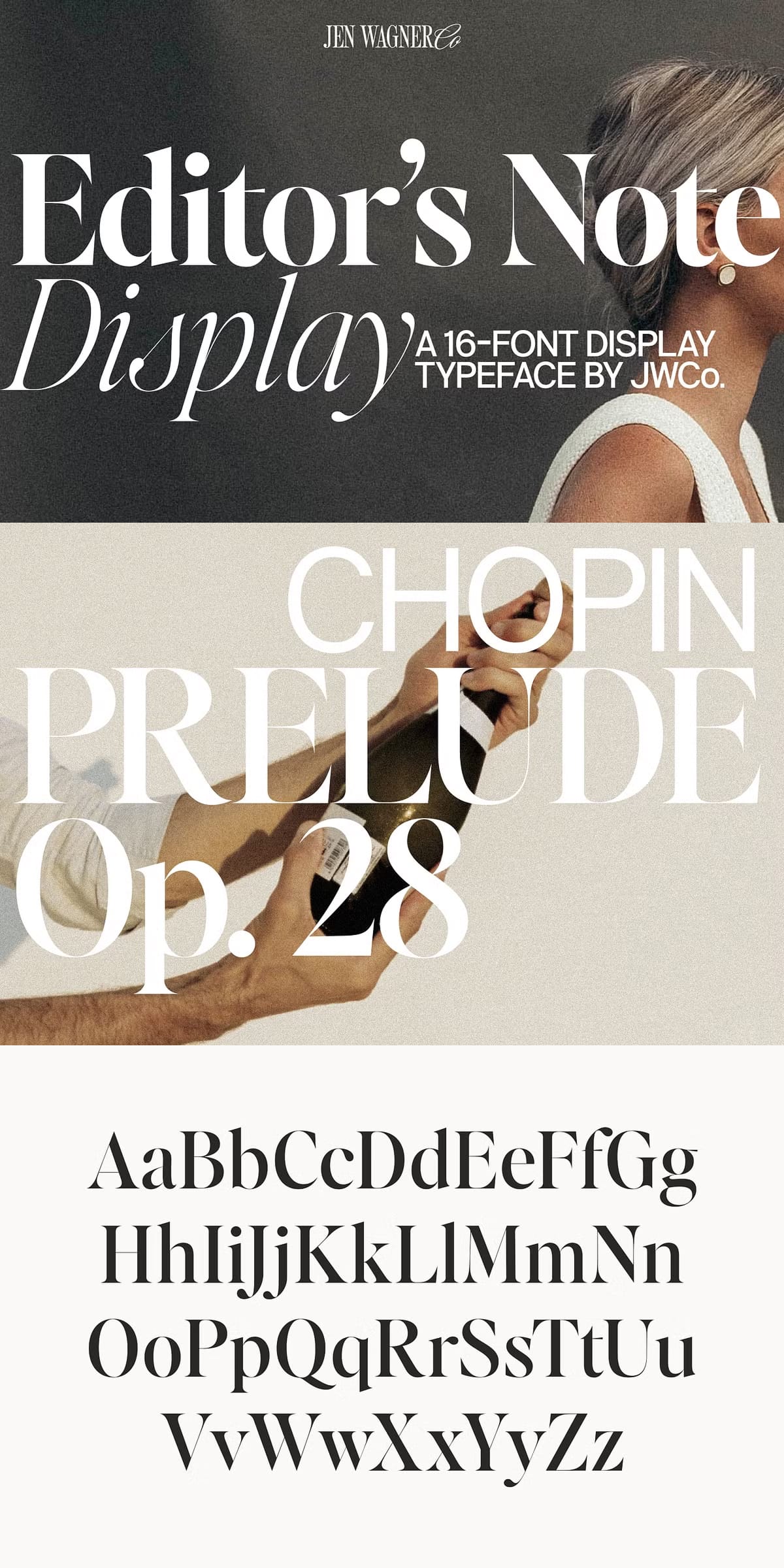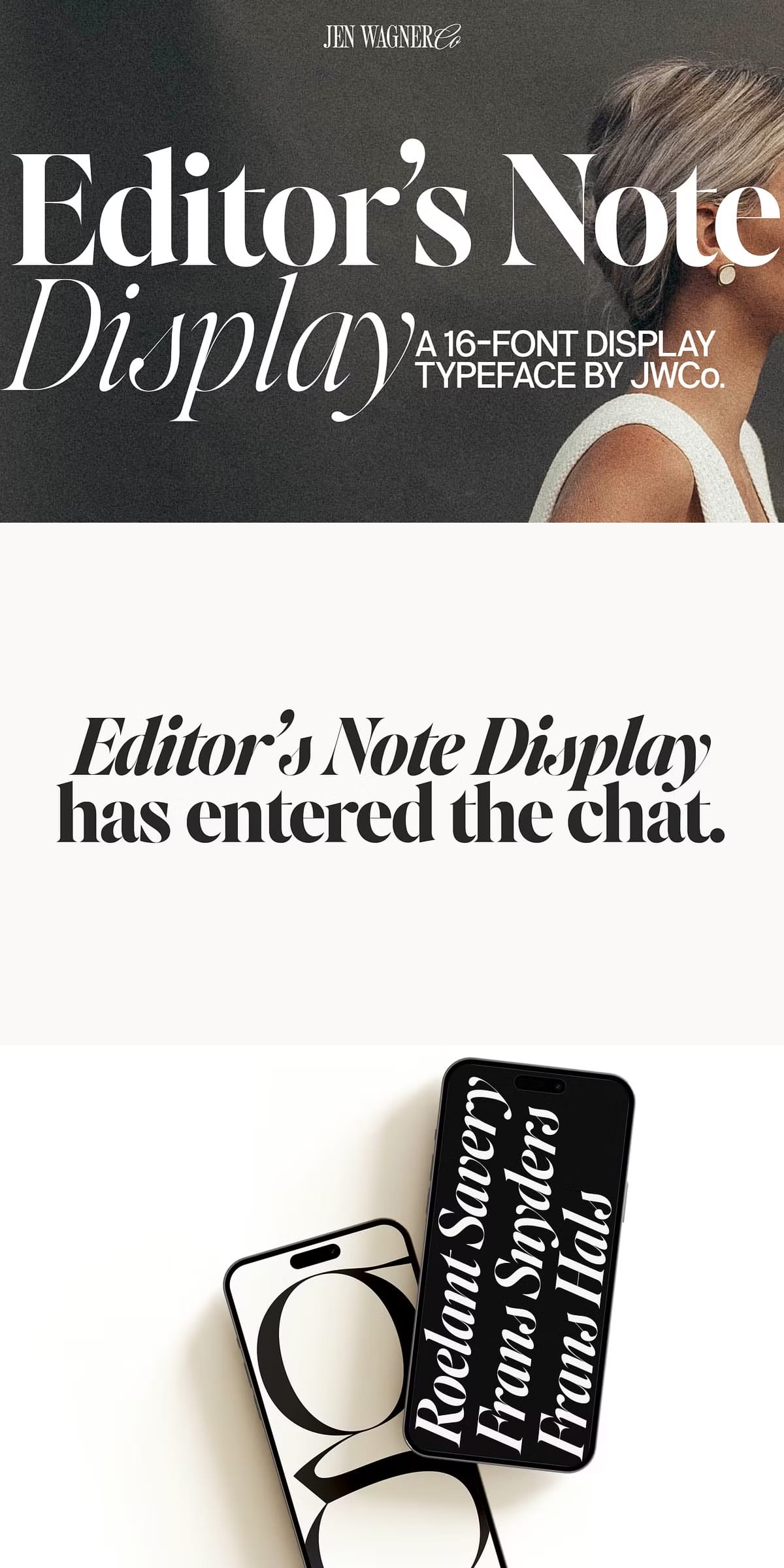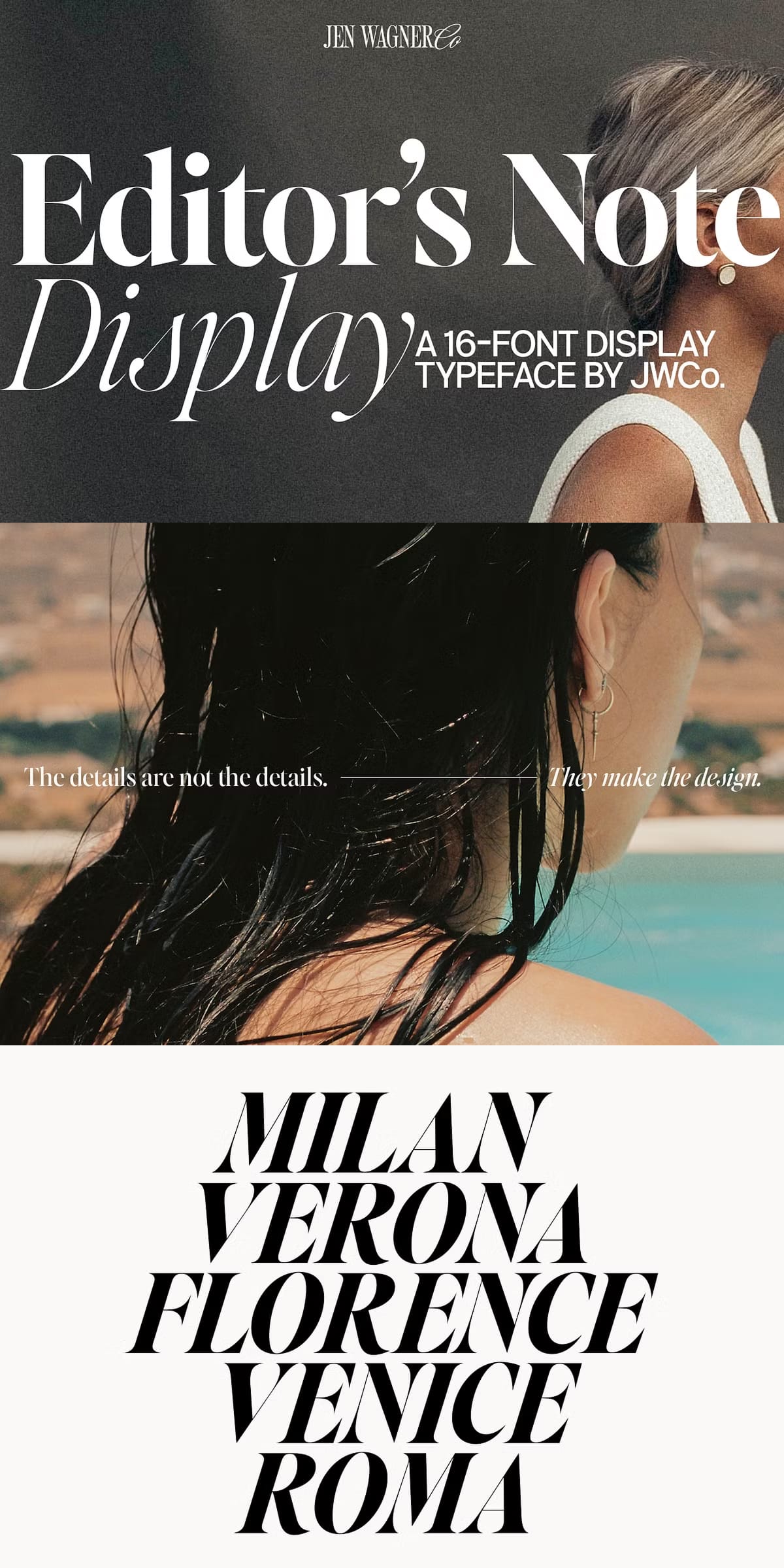
Enhance your typography with Editor’s Note Display, a striking and refined typeface designed to complement the original Editor’s Note and Editor’s Note Text fonts. This display version elevates your headlines and key text elements by infusing them with a heart-skipping crispness and bold visual presence.
Key Features of Editor’s Note Display
Editor’s Note Display is crafted with precision to deliver a high-contrast aesthetic that commands attention. Its sharp lines and elegant forms make it ideal for headlines, editorial layouts, branding, and any design that requires a sophisticated yet impactful typographic statement.
- High Contrast Design: The font features pronounced thick and thin strokes that create a dynamic and visually engaging appearance.
- Sharp and Crisp Letterforms: Each character is meticulously designed to offer clarity and elegance, ensuring your headlines stand out.
- Perfect Companion: Seamlessly pairs with Editor’s Note and Editor’s Note Text, allowing for cohesive typography across different text hierarchies.
- Versatile Usage: Suitable for magazines, websites, advertising, packaging, and any project that demands a refined display font.
Why Choose Editor’s Note Display?
When you need your headlines to make a bold statement without sacrificing sophistication, Editor’s Note Display is the ideal choice. Its high-contrast strokes and sharp edges bring a modern edge to classic serif typography, making your designs both timeless and contemporary.
Whether you are designing editorial spreads, promotional materials, or branding assets, this typeface ensures your message is delivered with clarity and style. The font’s versatility allows it to adapt to various design contexts, from print to digital, maintaining its visual impact across all platforms.